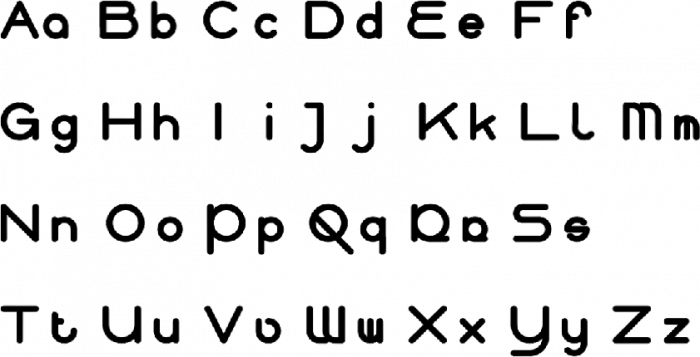
Font Rounded.
Can you add Uppercase B, Uppercase C, Uppercase D, Uppercase E, Uppercase G, Uppercase O, Uppercase P, Uppercase Q, Uppercase R, Uppercase S, Uppercase U, Uppercase X, Uppercase Y, Lowercase X, Lowercase Z, Numbers, Punctuation, Greek, Copyright (©), Registered (®) and More Russian Please?
comfortaa a